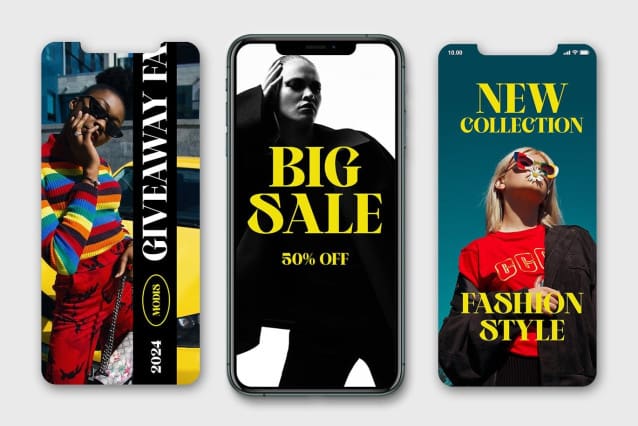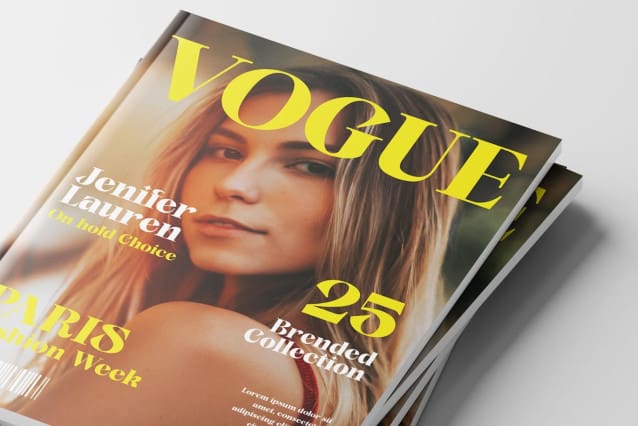
Sifyna Font
Sifyna Font is a modern Serif typeface with a contrasting visual design form. Sifyna features a bold trendy font to help you create an attractive design project. Sifyna has two regular styles and the outline also includes an alternate, ligated character and multilingual.
Sifyna Font is a perfect choice for any creative, chic and lifestyle design, like logos, advertisements, watermarks on photographs, stationery, branding projects, displays and magazines, invitations, brands corporate, product design, labels, commercial projects and many other projects with a touch of elegance.